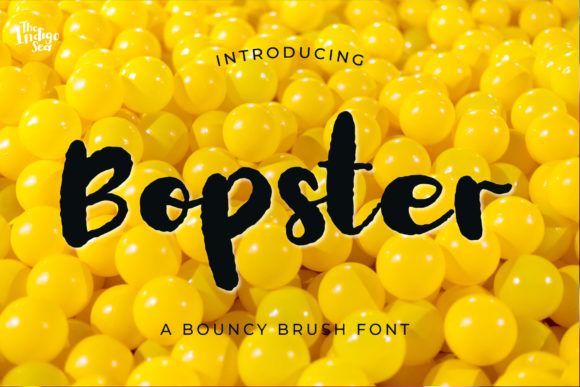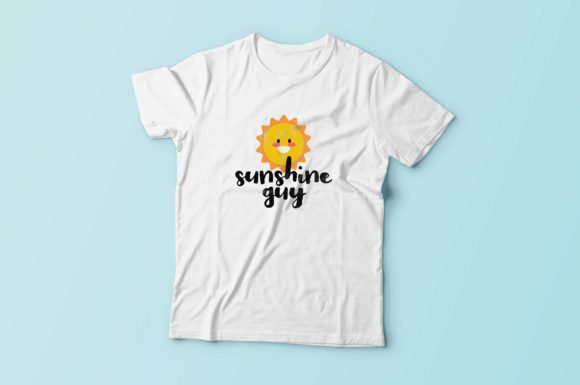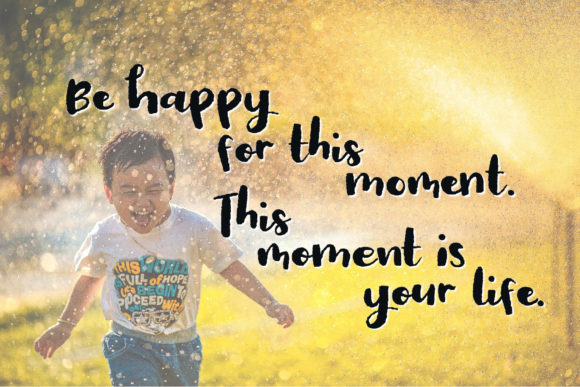
About Bopster Font
Bopster is a chic, trendy and fun handwritten font. Add this font to your most creative ideas, and notice how it makes them stand out!